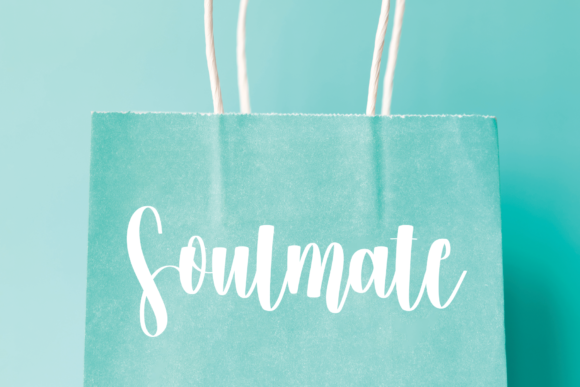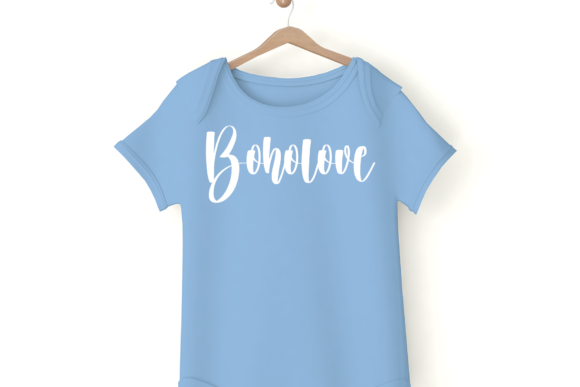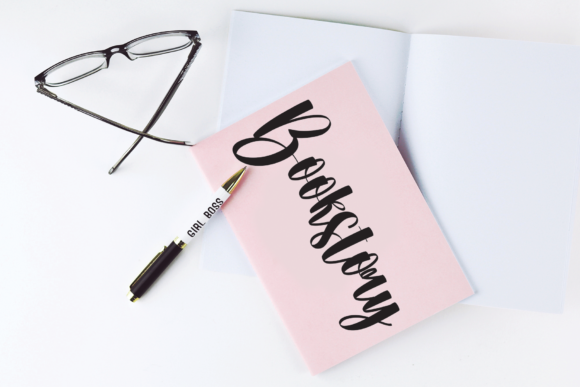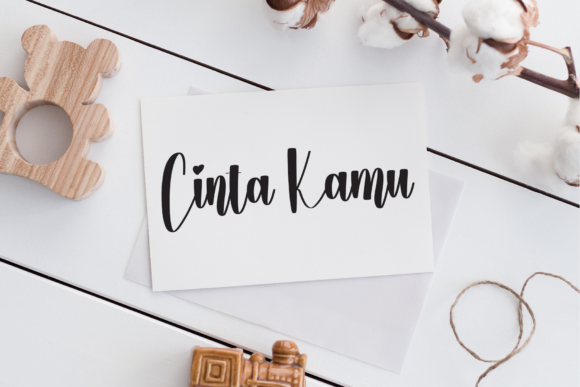
Introduction to Scribery Font Font
Fonts play a crucial role in design, and the Scribery Font font is a typeface that brings both character and versatility to any project. Whether you’re working on a branding project, a website, or a print design, the Scribery Font font offers a unique style that can elevate your work.
Scribery is an elegant script font with a contemporary atmosphere and impeccable form, inspired by timeless classic calligraphy.
Not too thin and not too thick, balanced and varied, this font was designed to enhance the beauty of your projects .
Key Features of Scribery Font Font
Why Choose Scribery Font Font?
The Scribery Font font is more than just a typeface – it’s a design tool that helps you communicate your message with style and clarity. Its unique character set and versatile design make it suitable for a wide range of applications, from elegant invitations to bold headlines.
With its carefully crafted letterforms and balanced proportions, the Scribery Font font ensures readability and visual appeal across all mediums.
What makes Scribery Font font special?
The Scribery Font font stands out with its unique design, exceptional readability, and versatility across various design applications.